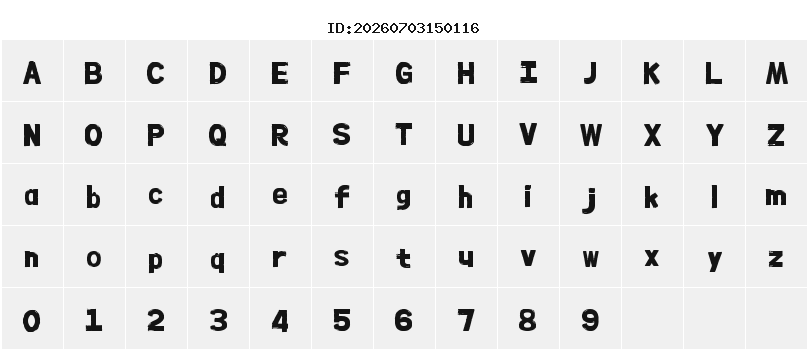
297-上首墨玄体 Preview
• Font Name: 297-上首墨玄体
• Full Font Name: 297-上首墨玄体
• Manufacturer: 上首造字
About 297-上首墨玄体.ttf
297-上首墨玄体.ttf is a modern, elegant sans-serif font designed for ultimate readability and visual harmony. Perfect for branding, headlines, web design, and print materials.